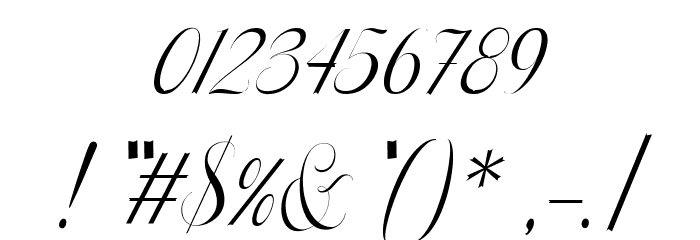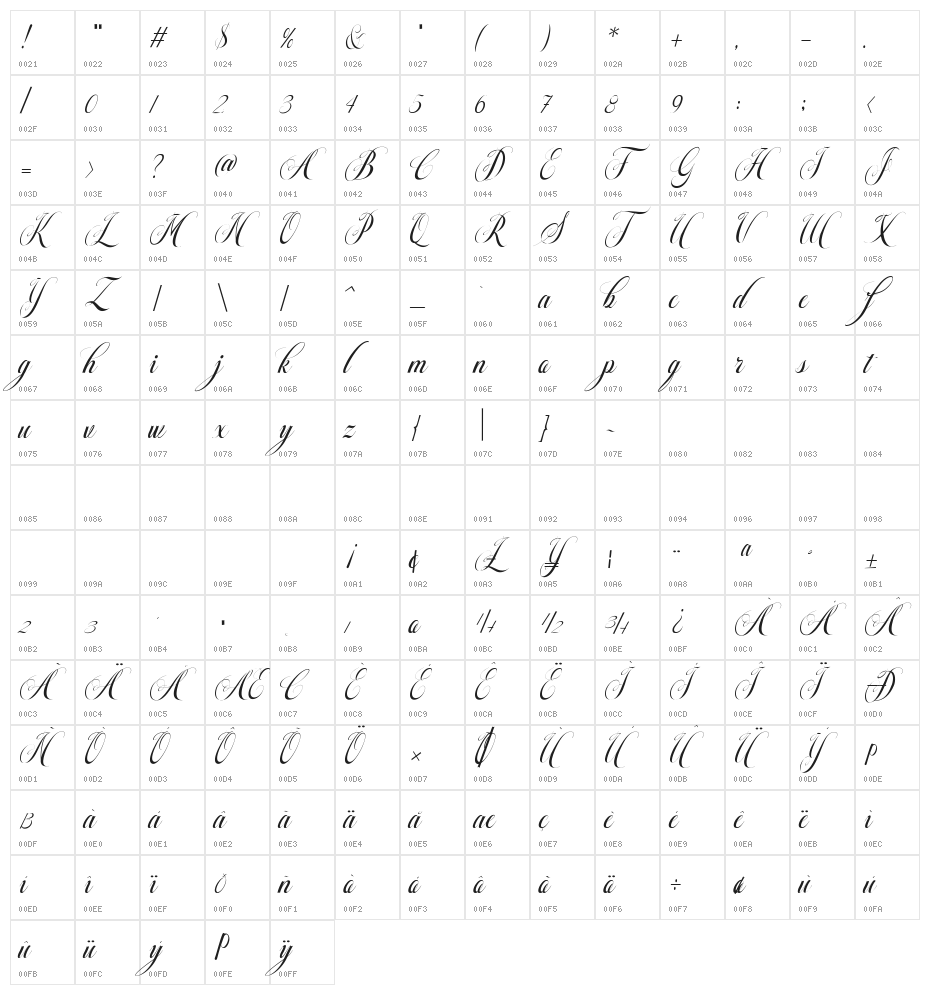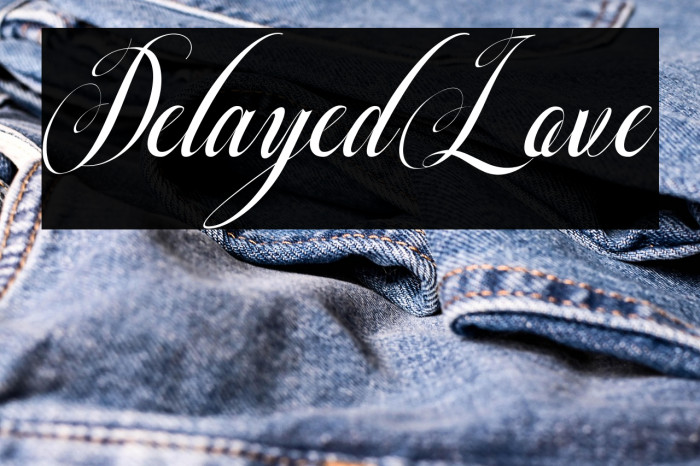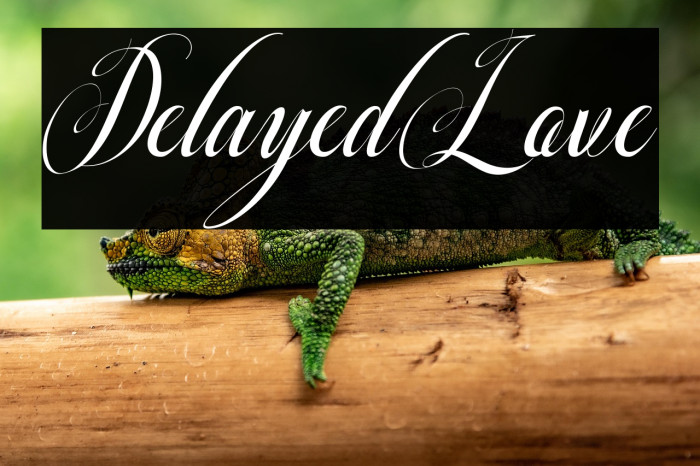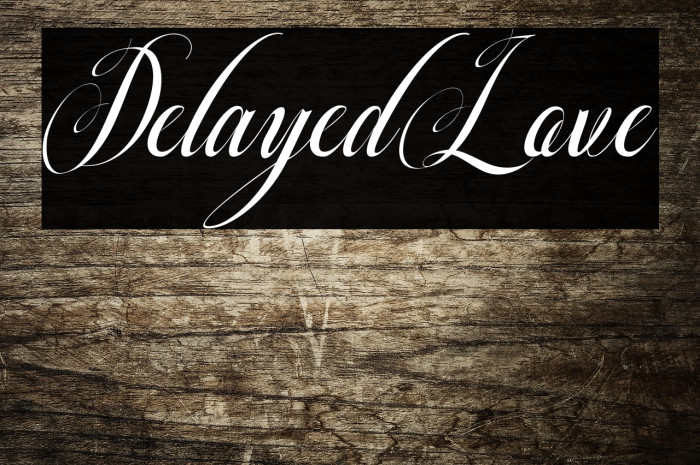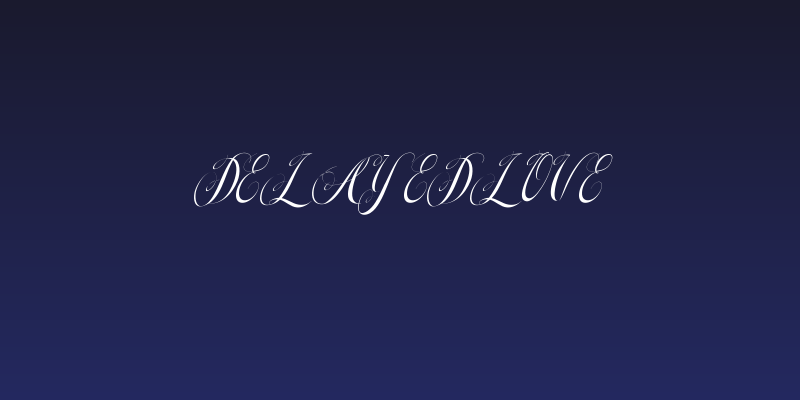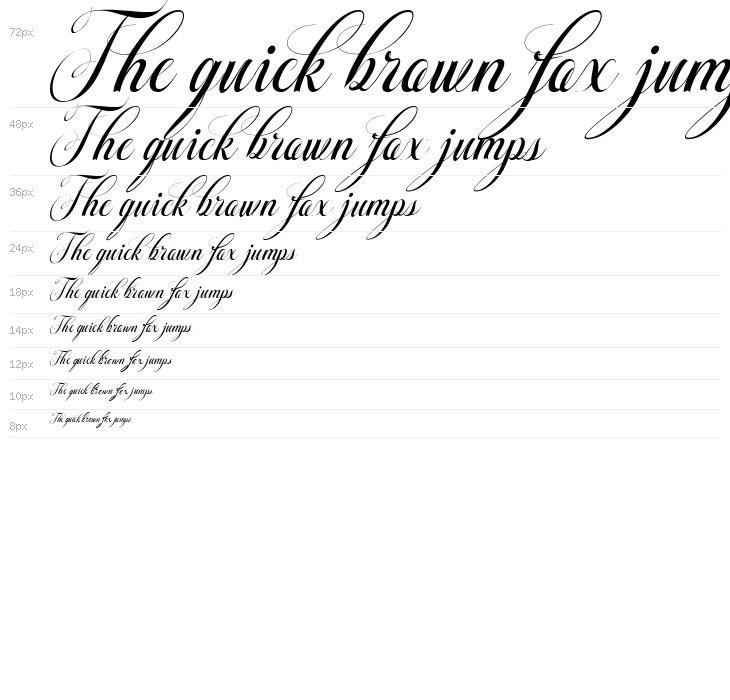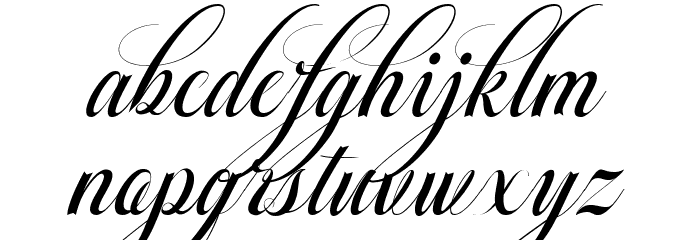
DelayedLove Font
DelayedLove Description
This font exudes elegance and sophistication with its intricate and flowing script style. Each character is adorned with elaborate swirls and flourishes, creating a sense of movement and grace. The uppercase letters are particularly ornate, with sweeping lines that extend beyond the baseline, while the lowercase letters maintain a consistent fluidity. The numerals and special characters are equally decorative, ensuring a cohesive look across all text. This font is perfect for projects that require a touch of luxury and refinement.
| Proposed Projects | Ideal for wedding invitations, luxury branding, high-end product packaging, and elegant event signage. |